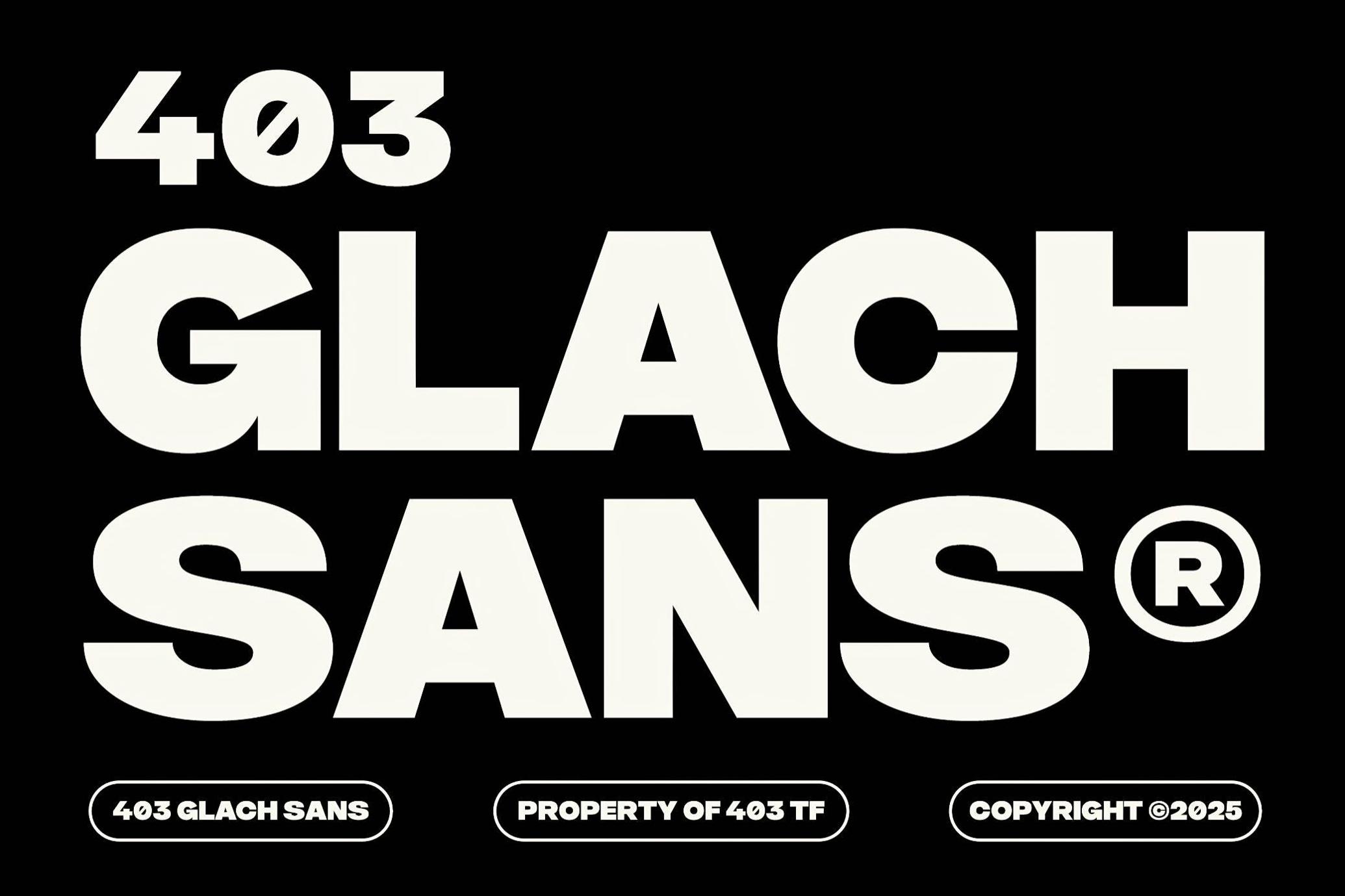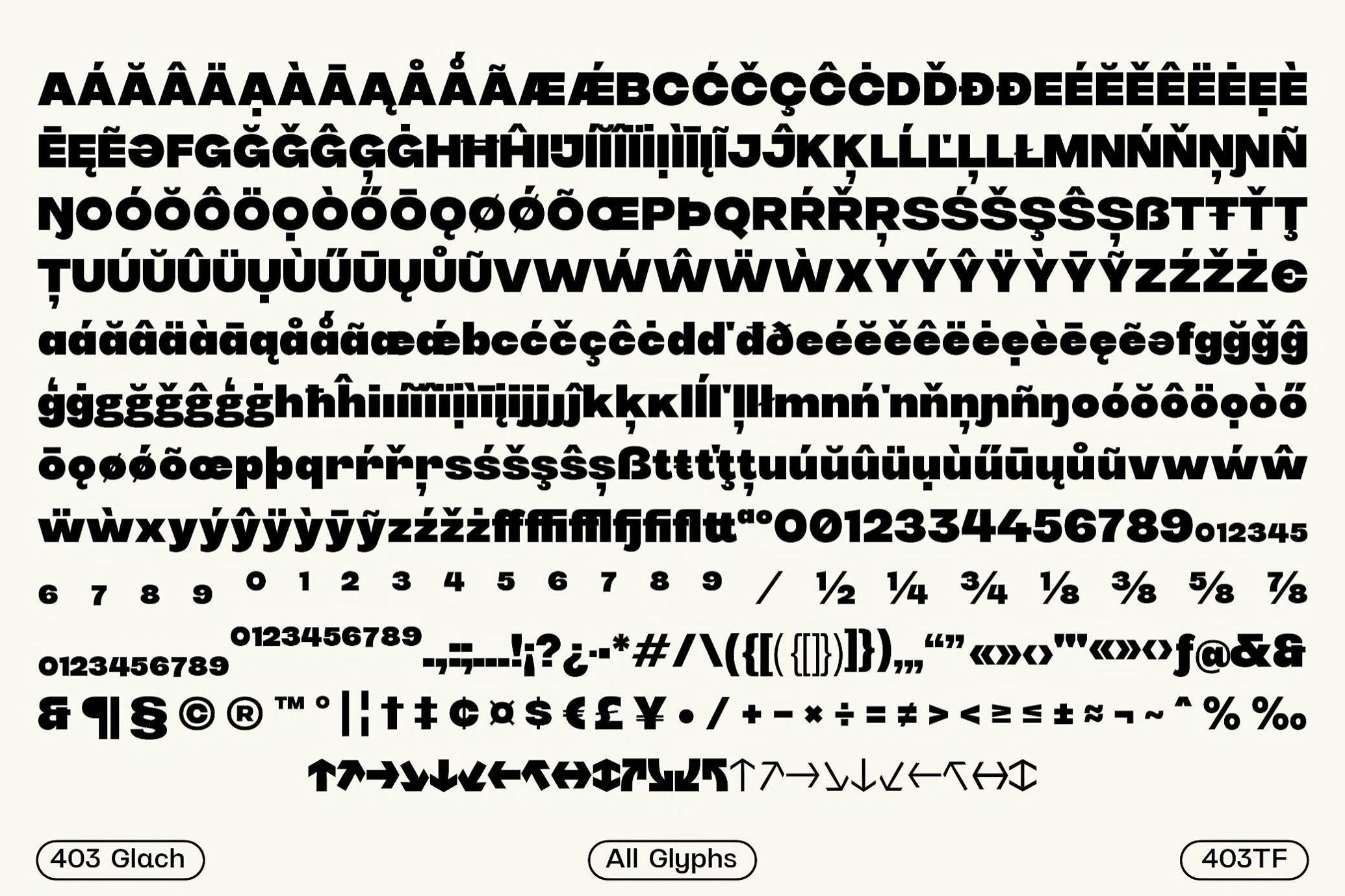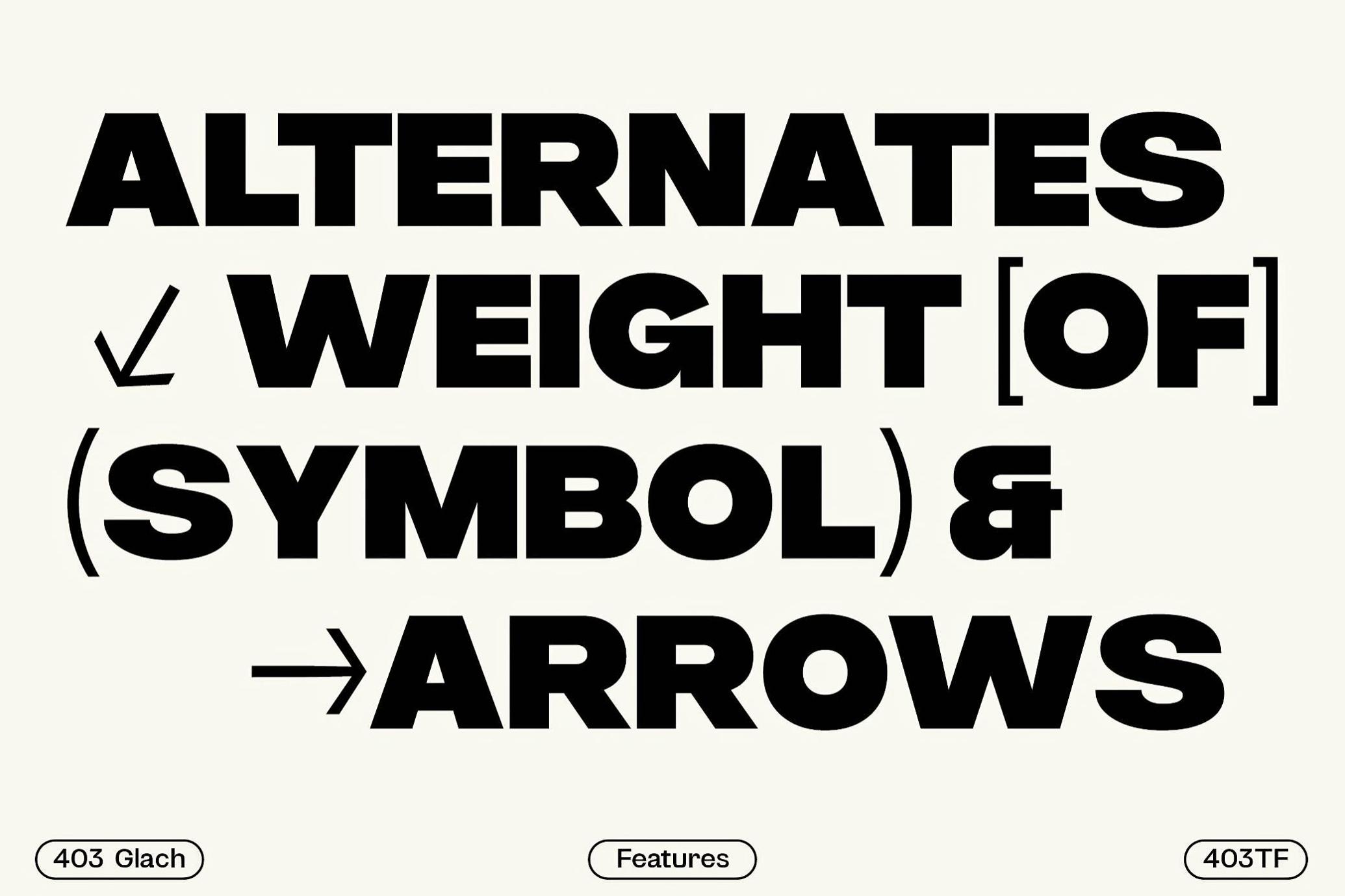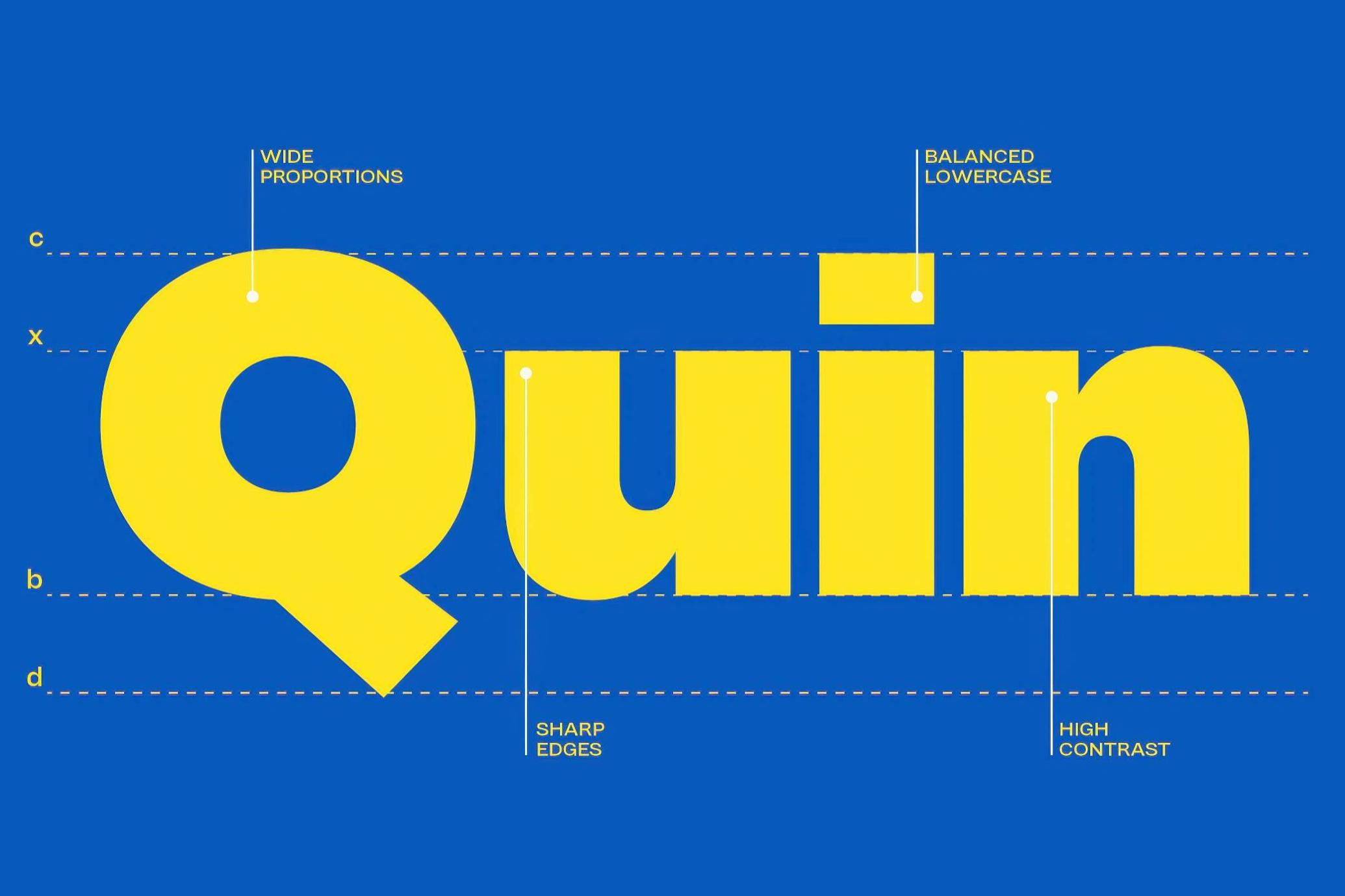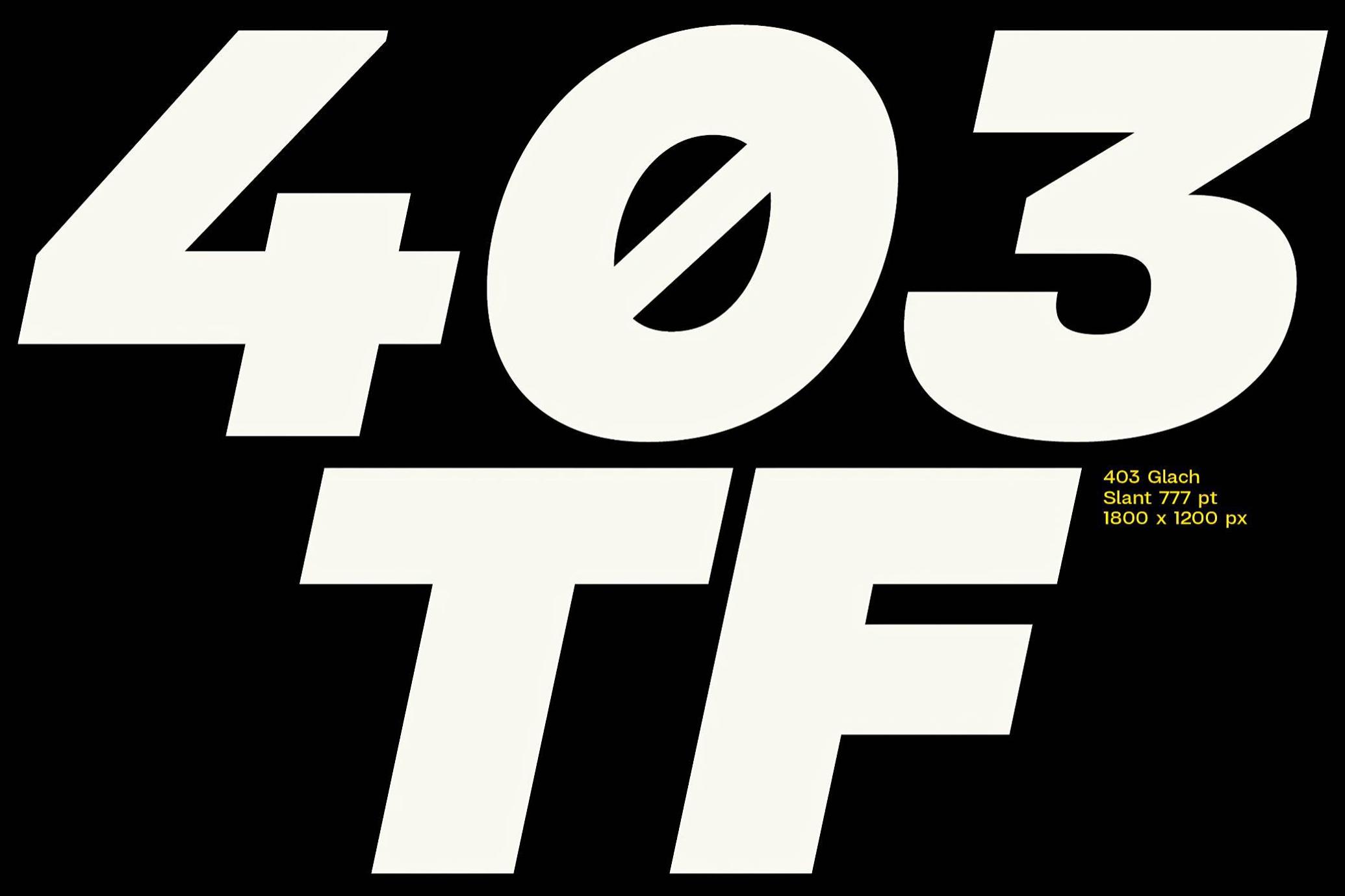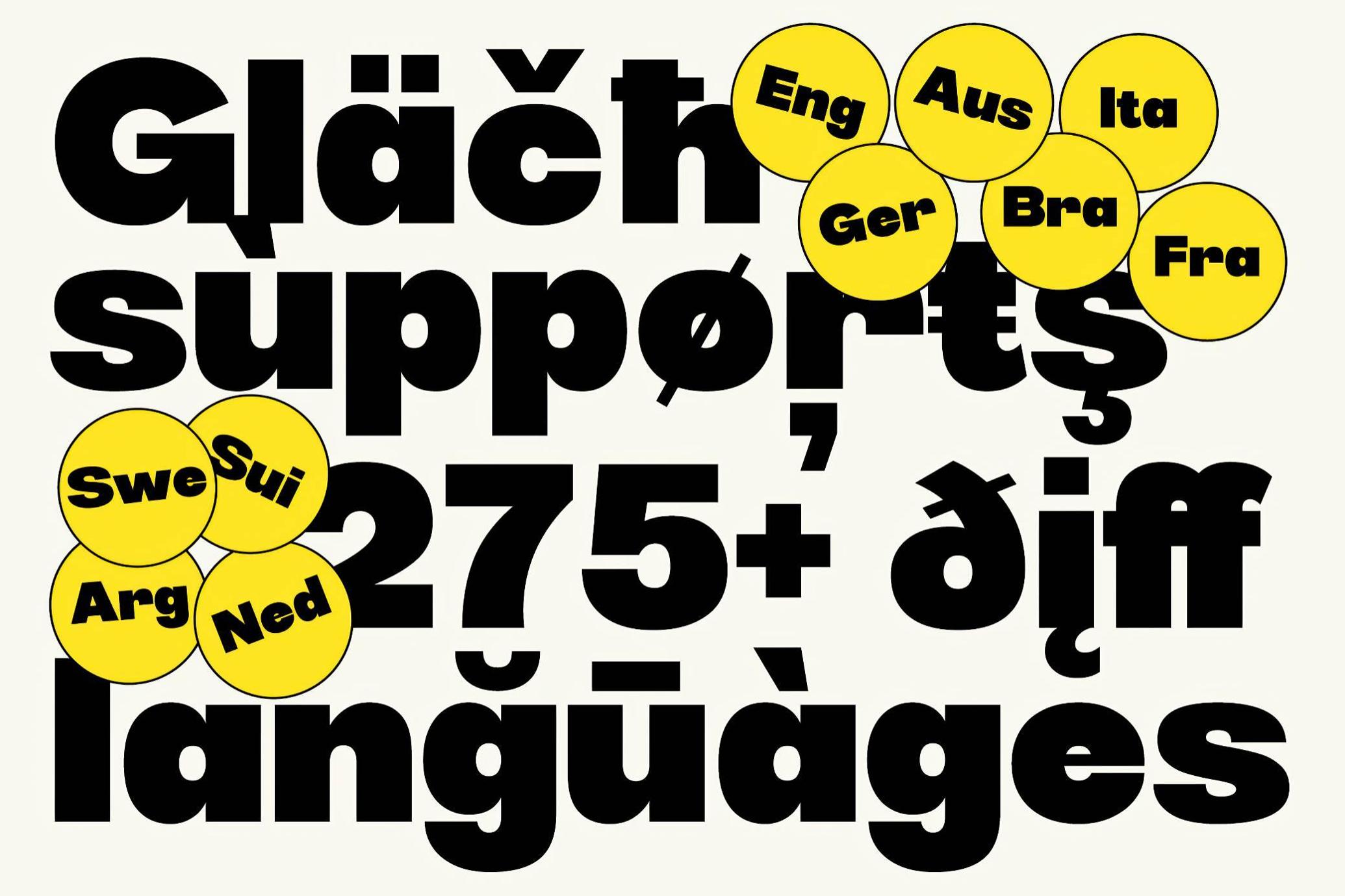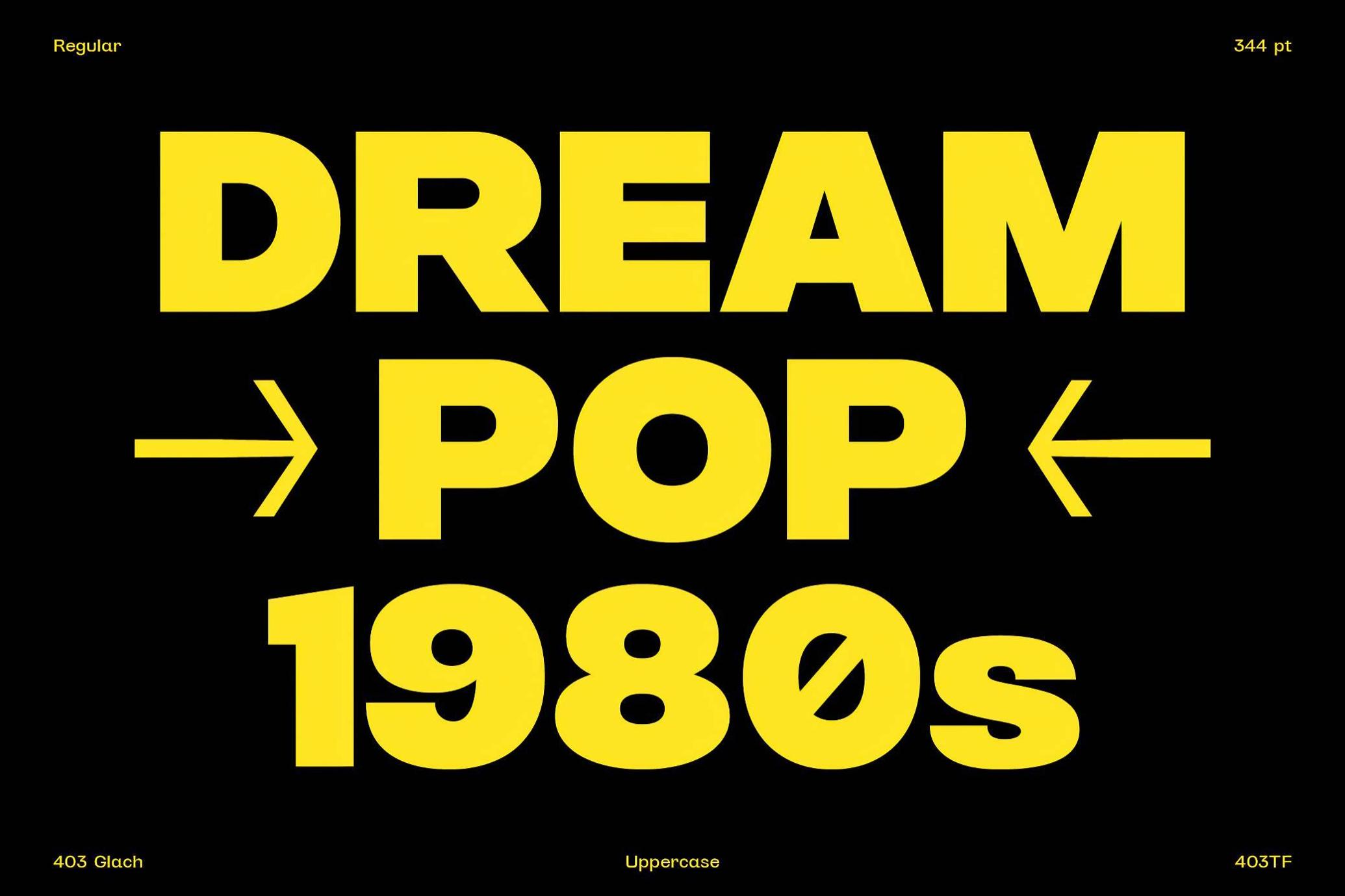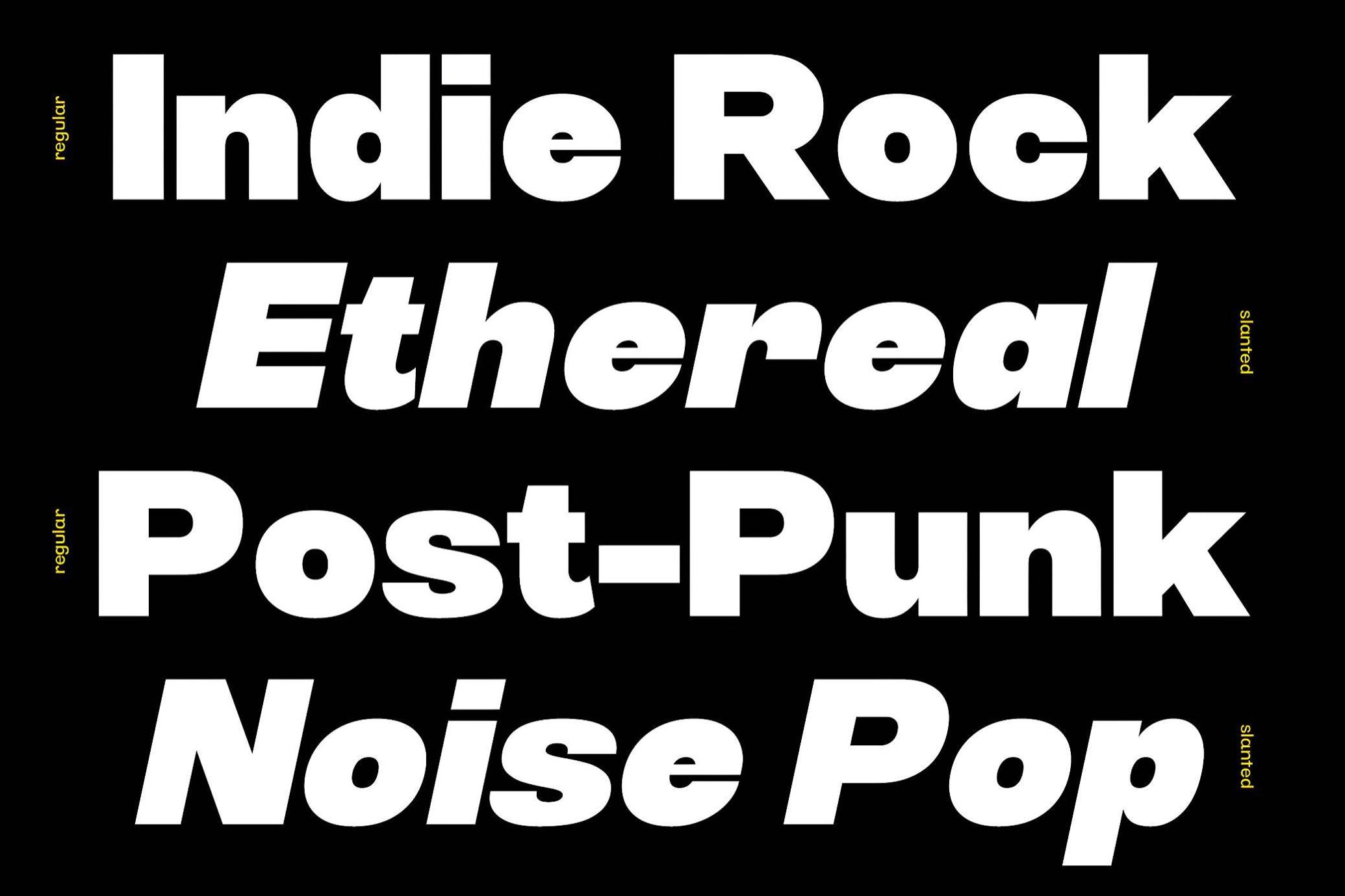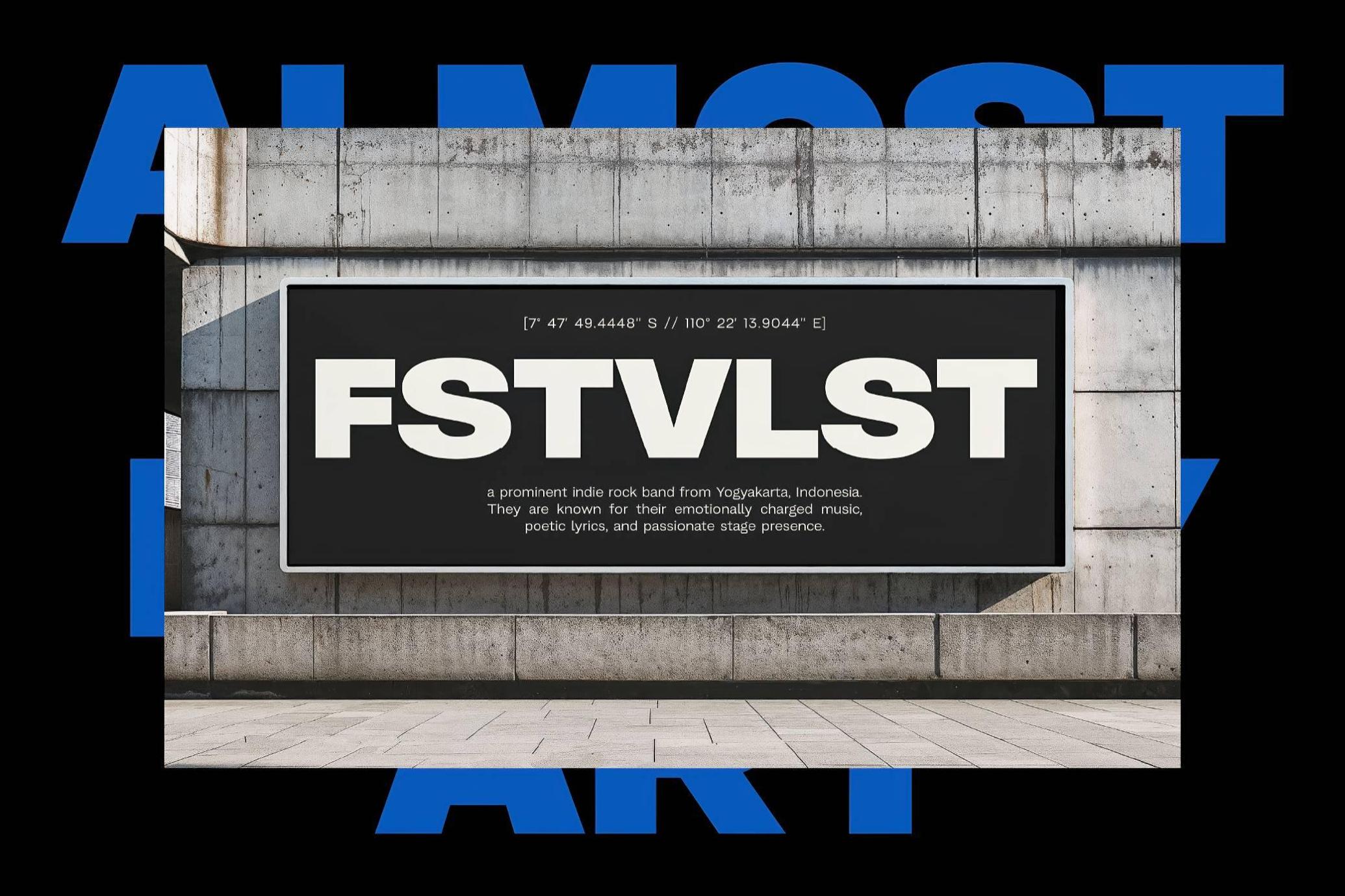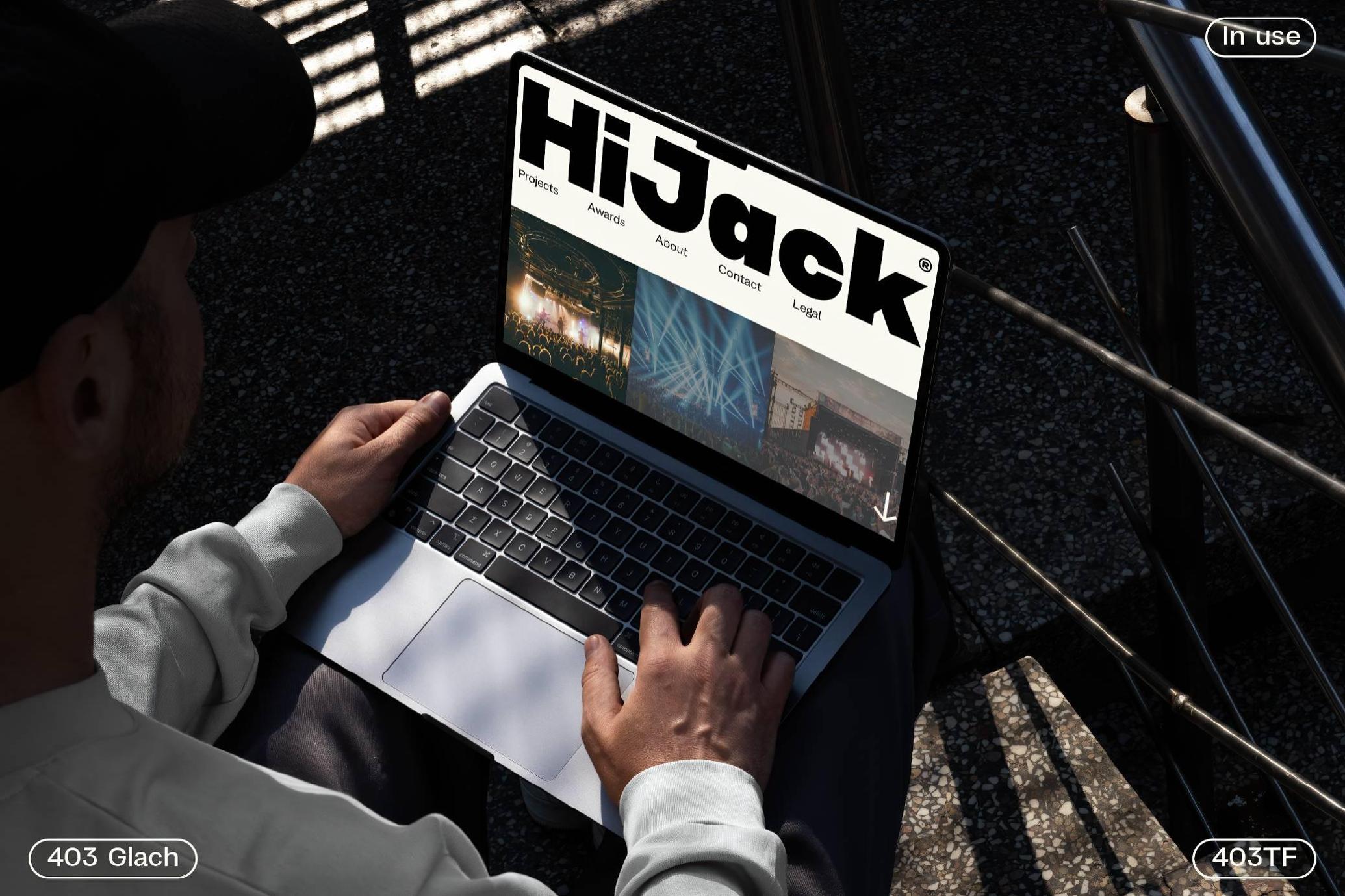
403 Glach Sans
The 403 Glach Sans gets you an industrial-modern vibe rooted in brutalist design and retro-futurist minimalism. Its massive, tightly-set forms, high x-height, and trimmed counters bring to mind the signage and poster type of mid-century modernism, reinterpreted through the lens of contemporary visual culture. This typeface feels just as natural on concrete gallery walls as on indie music branding, urban tech startups, or digital editorials with something to say.
Think of it as Helvetica’s rebel cousin with a graphic design degree and a soft spot for modular synths. The 403 Glach Sans has a large glyph set and two adaptable styles — Regular and Slant. The Slant style adds a dynamic, forward-moving energy, while the Regular style provides a clean and sturdy appearance.